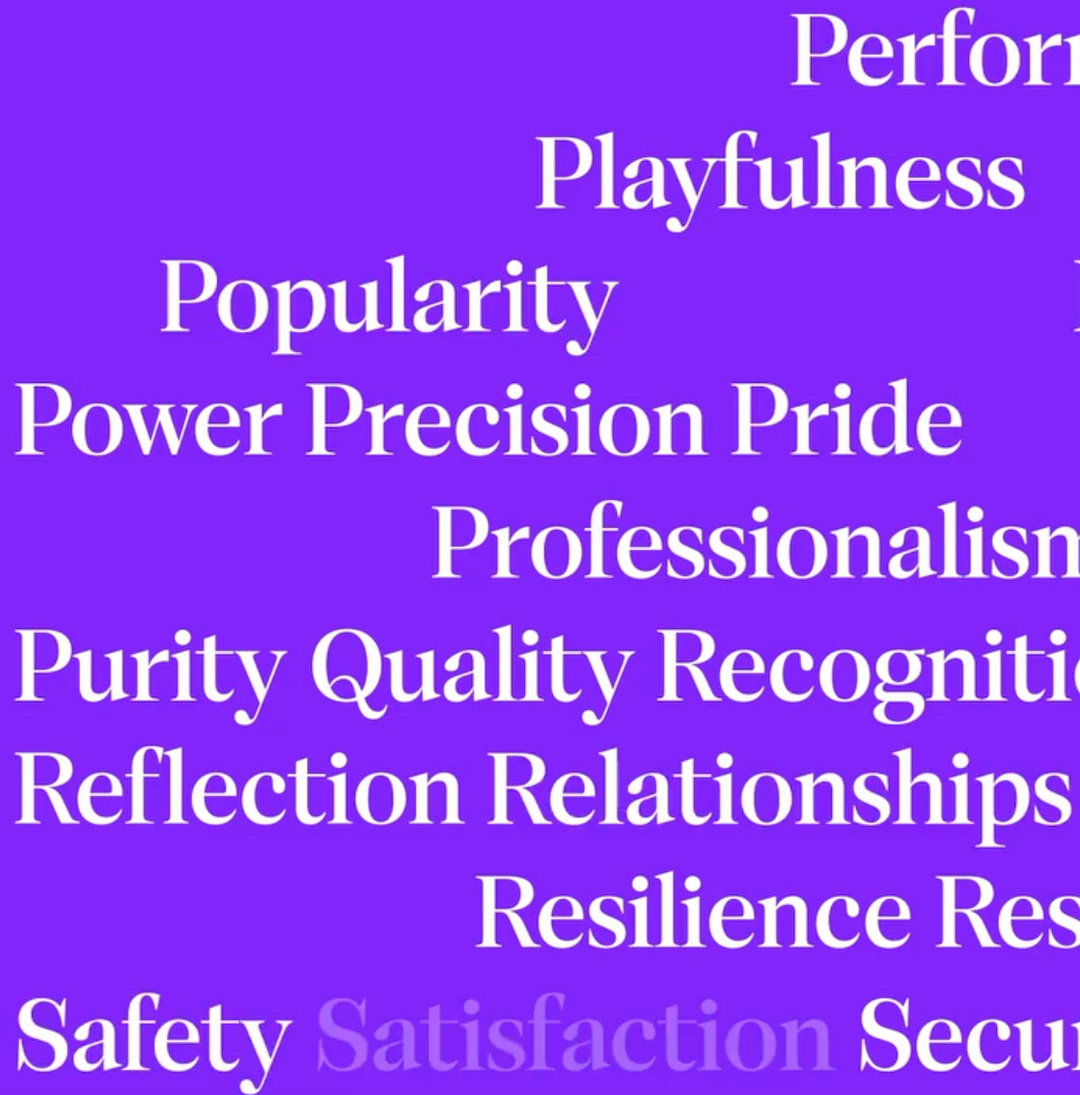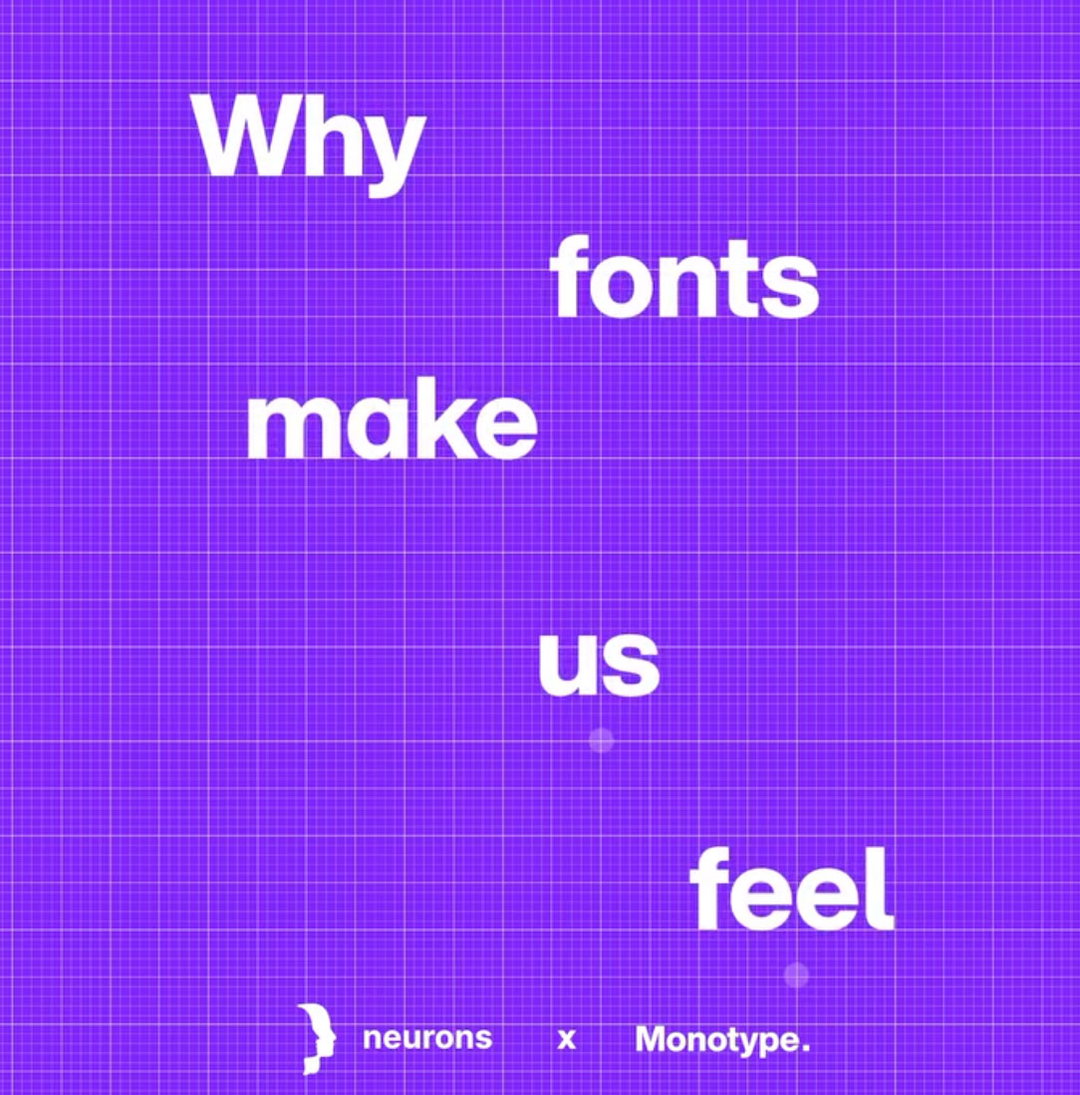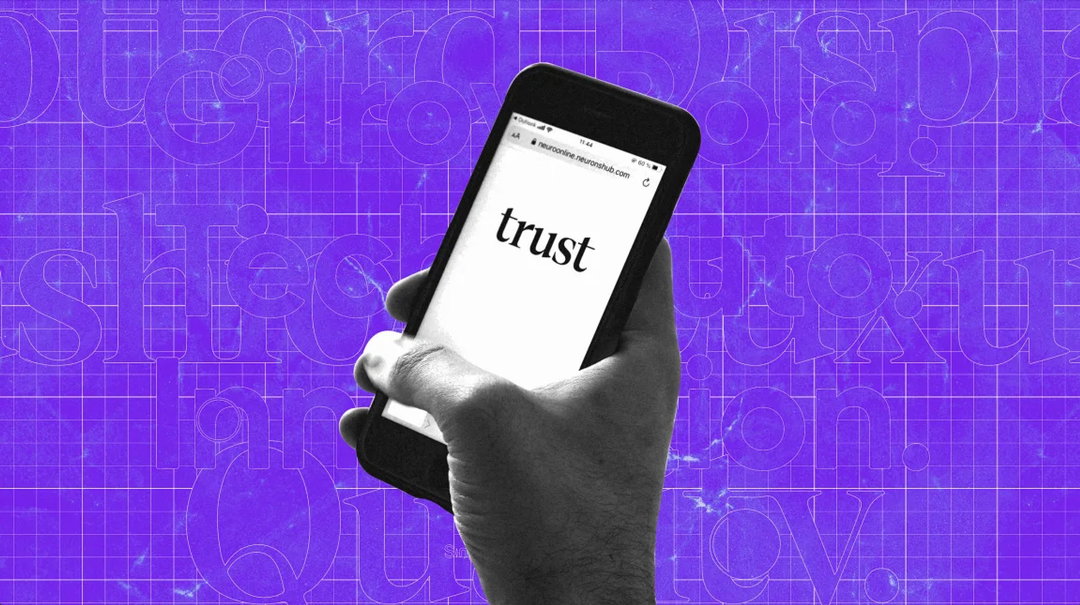
A purple graphic with a white grid background features the words “Why fonts make us feel” scattered across the frame. At the bottom, a logo and text read “neurons x Monotype.”
Monotype says fonts make us feel things, but which fonts are the most trustworthy?
Collated in collaboration with Neurons, a new study from Monotype finds that the right type can boost positive reader response by 13 per cent. But what is the “right type”?
“Type is a profound emotional influencer in our world,” states Phil Garnham, creative type director at Monotype: “Brand is typography”. It’s a bold, but founded claim. With typography linked so closely to the look of every brand you have ever seen, it wouldn’t be a jump to assume it’s linked to their success too. The latest research from the mega foundry confirms that the crucial design element at the very least impacts how we see brands. Executed in collaboration with neuropsychologist Thomas Zoëga Ramsøy, and his company Neurons, the scientific study tracks how different fonts make us feel; from their capability to inspire trust and sincerity to how memorable they can be.
While we’ve all experienced a dip in trust or questioned a scam upon the sight of a dodgy font for a supposedly legitimate company, these aren’t immeasurable abstract notions for Monotype. The study found that setting words in certain fonts measurably boosted consumer response by up to a significant 13 per cent – a huge increase from the 0-5 per cent range Neurons expected to see. To measure emotional response, the organisations surveyed 400 participants, using three kinds of stimuli in an online testing solution: single words, a sentence using those words, and a sentence with the words including a brand. Each of these was set in three typefaces – FS Jack, a humanist sans; Gilroy, a geometric sans; and Cotford, a languid serif.
A list of white words in a serif typeface set against a bright purple background. The words include “Playfulness”, “Popularity”, “Power Precision Pride” and “Professionalism”.
Setting words in Cotford Display Regular, for example, sparked a nine per cent increase in trustworthiness, a ten per cent increase in how memorability, and an increase in the appearance of “quality”. The report explains: “Serif designs such as Cotford have long been associated with the world of fashion and luxury, meaning people’s subconscious reaction is driven by years of cultural association”, – thus explaining the link to luxury.
For those looking to foster a sense of trustworthiness, typefaces with strong roots in calligraphy, like Cotford and FS Jack, seem to promote a deeper, instinctive emotional reaction in readers. In fact, the humanist sans FS Jack Regular boosted sincerity and honesty by ten per cent and five per cent respectively.
But why? Marie Boulanger, Monotype brand designer, states: “We think that a possible explanation for this could be some of the formal qualities associated with this type of drawing; basically the ‘human’ in humanist. The open terminals, the squarer curves, the double-storey /a/ and /g/ are usually described as a little bit warmer than their geometric counterparts.”
A person holds a smartphone against a purple background filled with large, outlined letters. The phone screen displays the word “trust” in a simple black typeface.
When it came to testing out longer sentences in various fonts, like a slogan, Gilroy Bold, a geometric sans, came out on top – showing a 12 per cent increase in prominence and a five per cent increase in competitor standout. Marie explains in this instance, the use of a bold type could have played a factor, as well as this type’s prevalence in the tech and start-up world. Fascinatingly, Marie adds: “I wonder if legibility played a part in people’s emotional response. If messages are easier to read, do you trust them more?”
On what this study means for the design industry going forward, Phil concludes: “Our work with Neurons reinforces type’s powerful effect on people. The qualities we read can influence whether a word is interpreted as soft, fluffy, warm or hard, sincere, and cold. These tonal qualities guide meaning, they leave a subconscious mark on the brain, we retain that feeling, we remember the words brands use as a voice [...] On the flip side, brands that take type for granted and employ a poorly chosen typeface risk alienating their customers, negatively impacting the bottom line.”